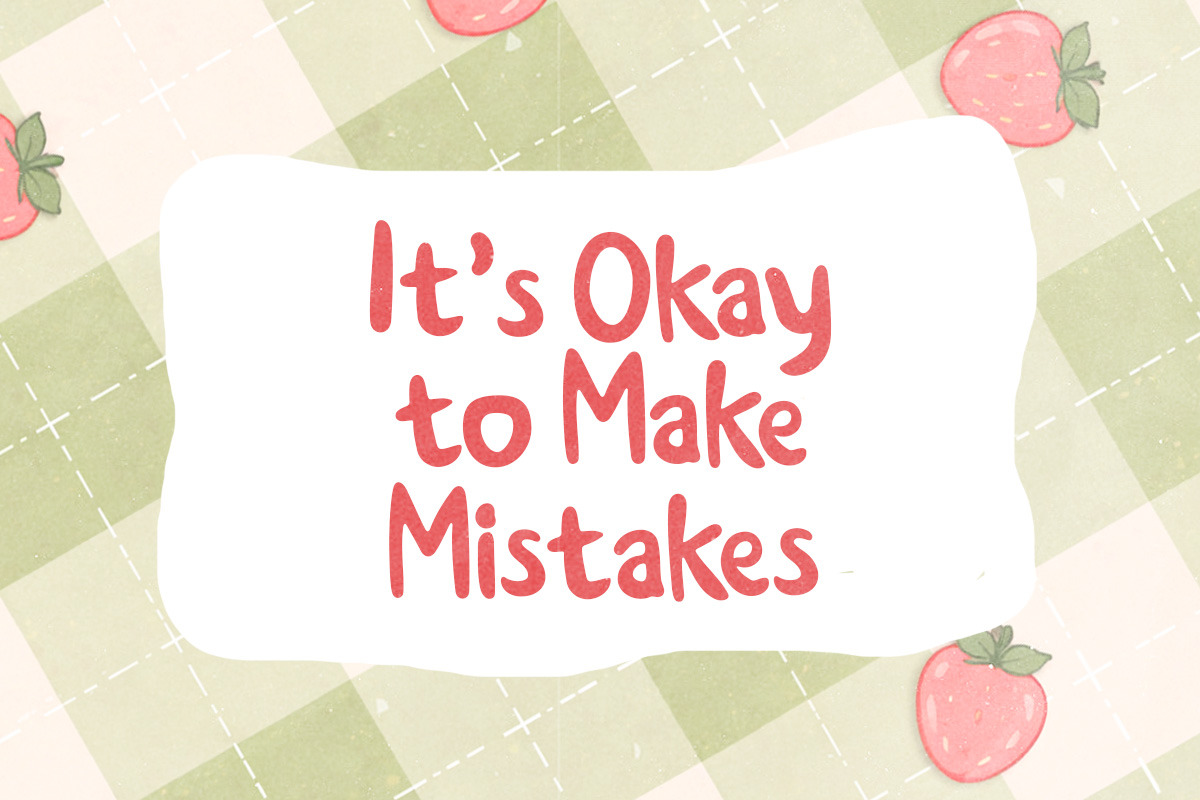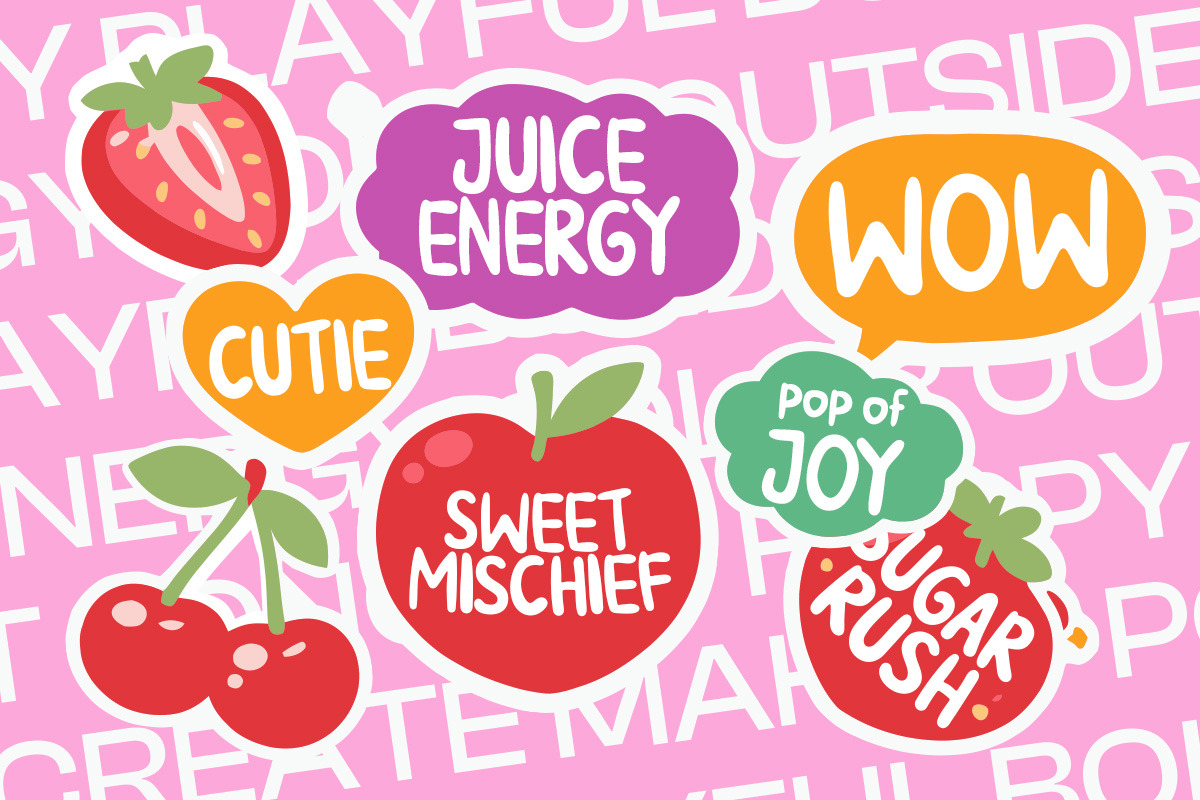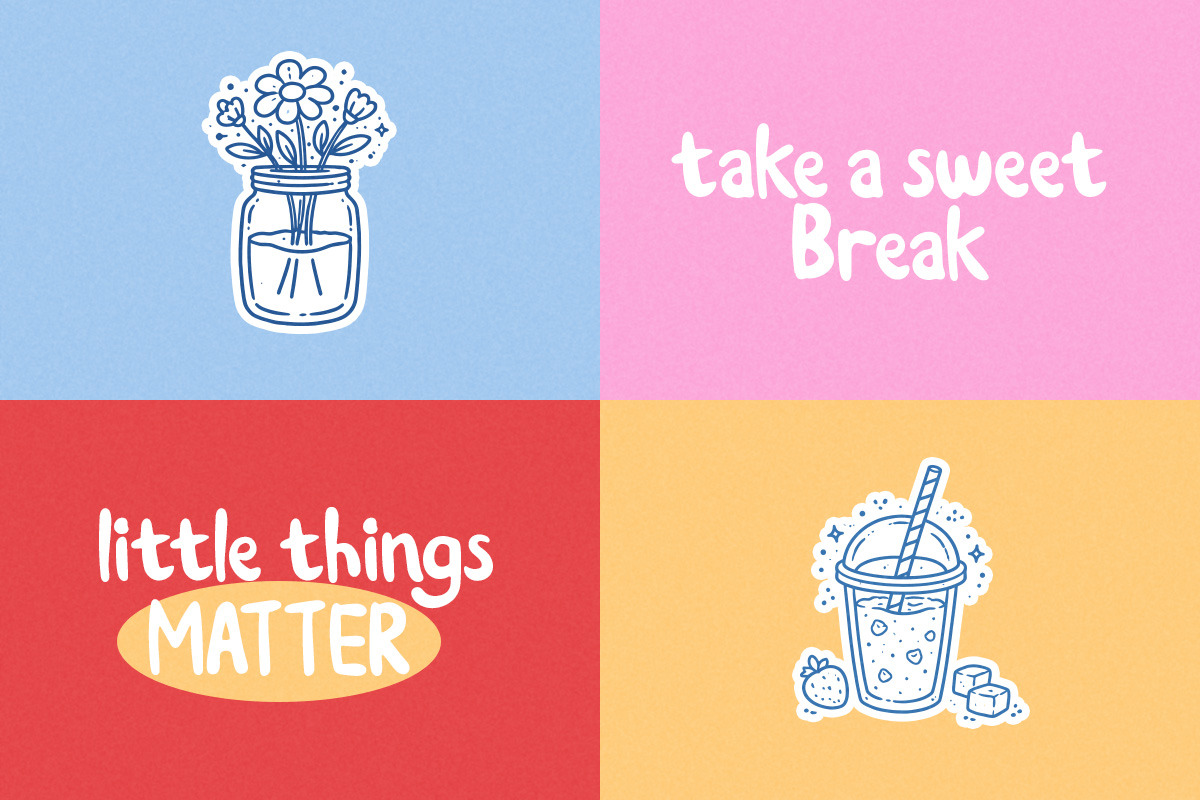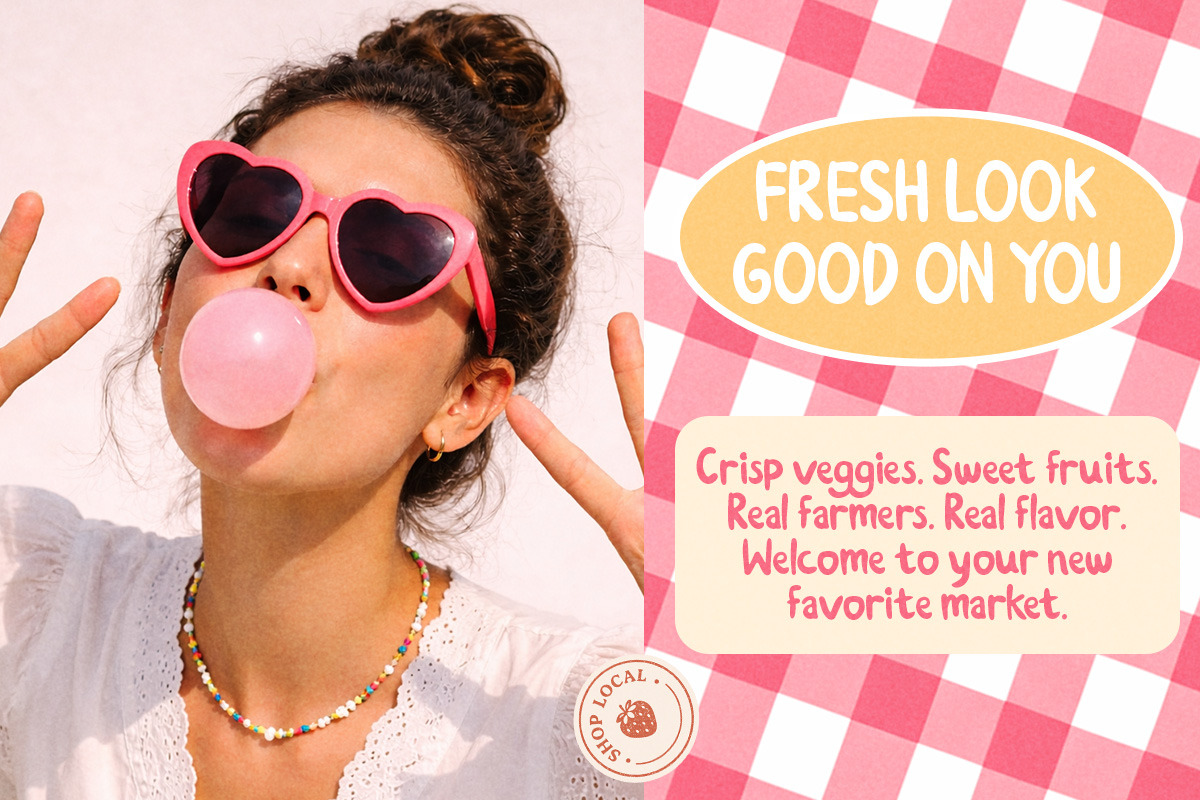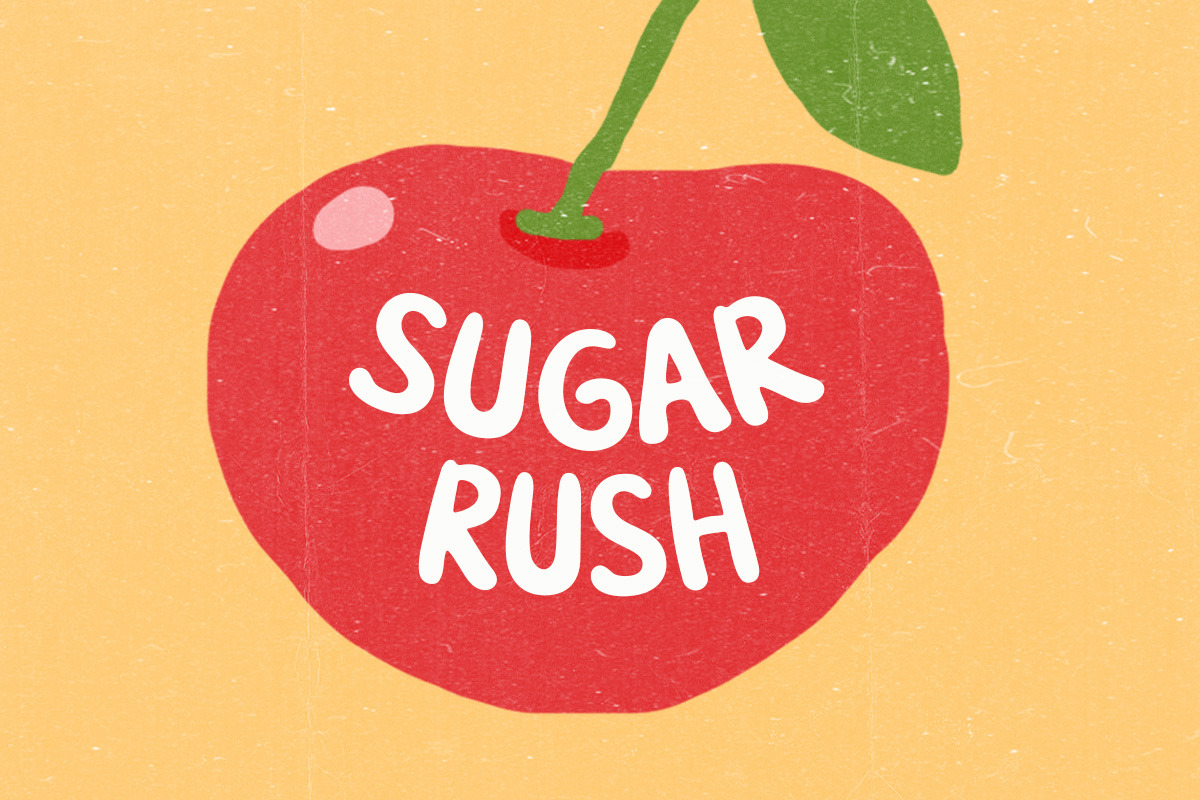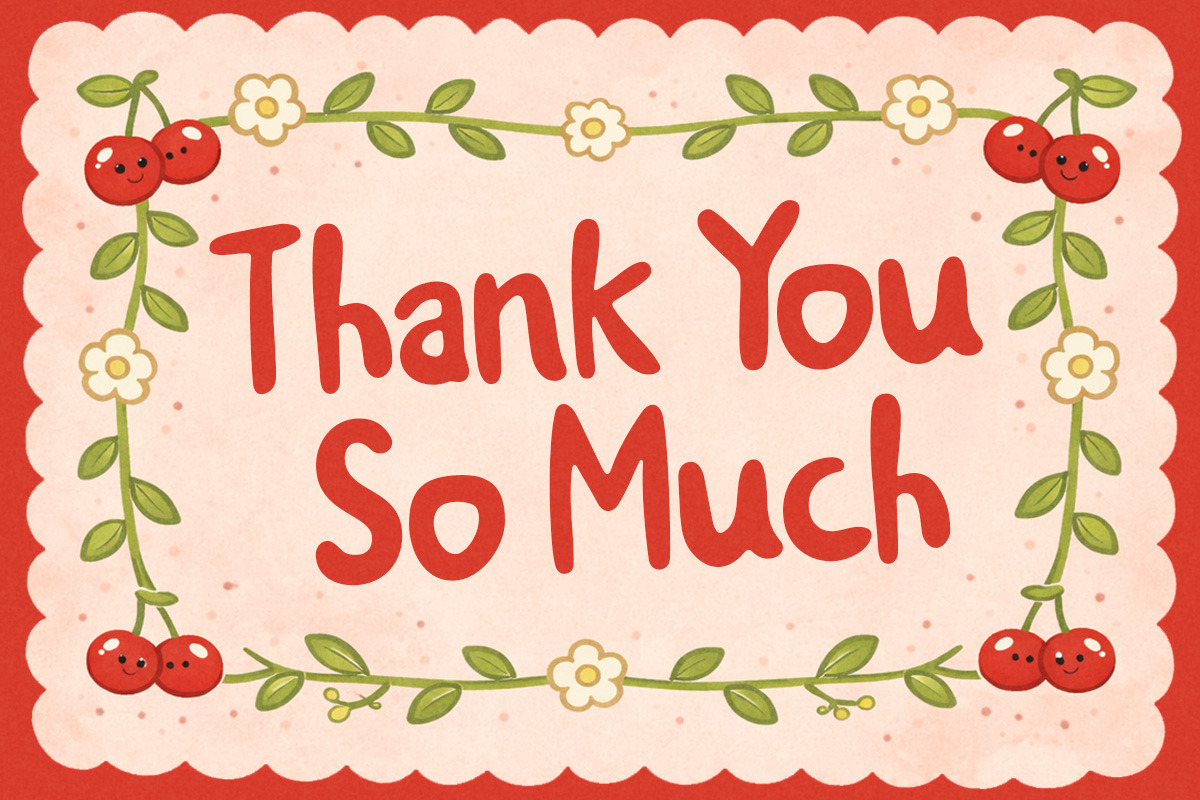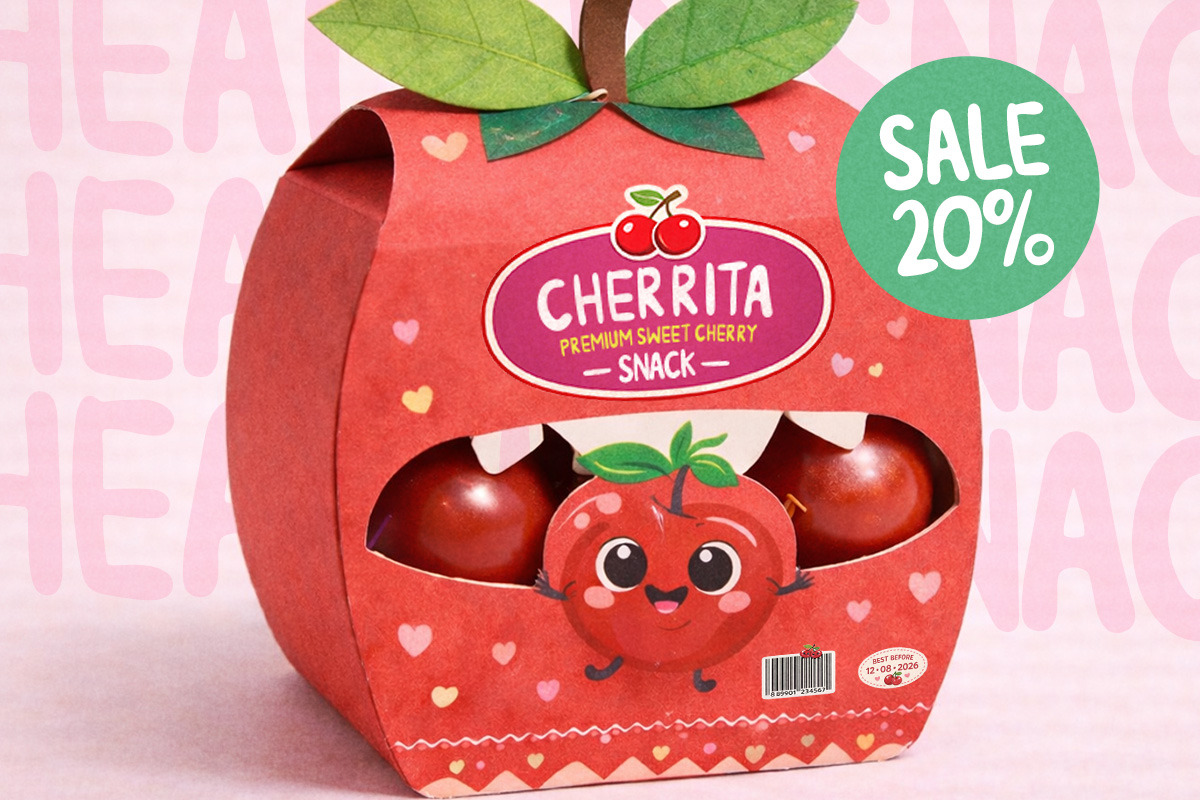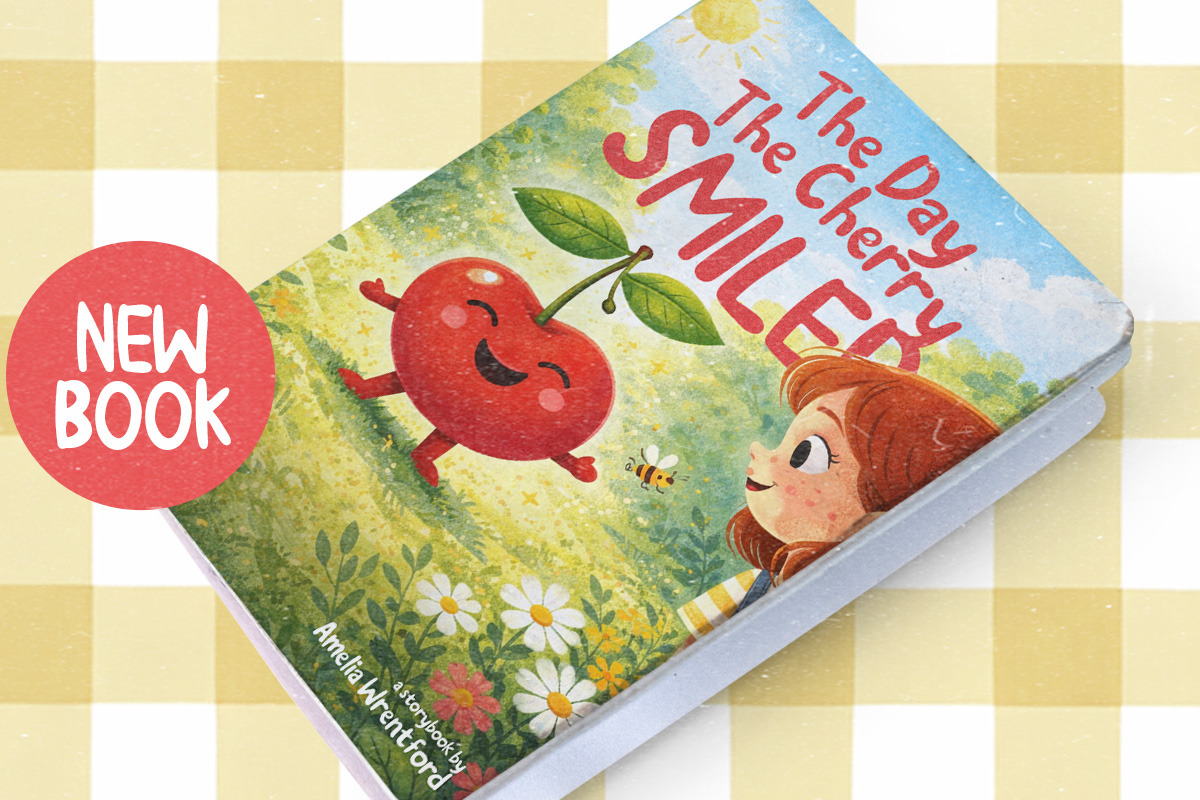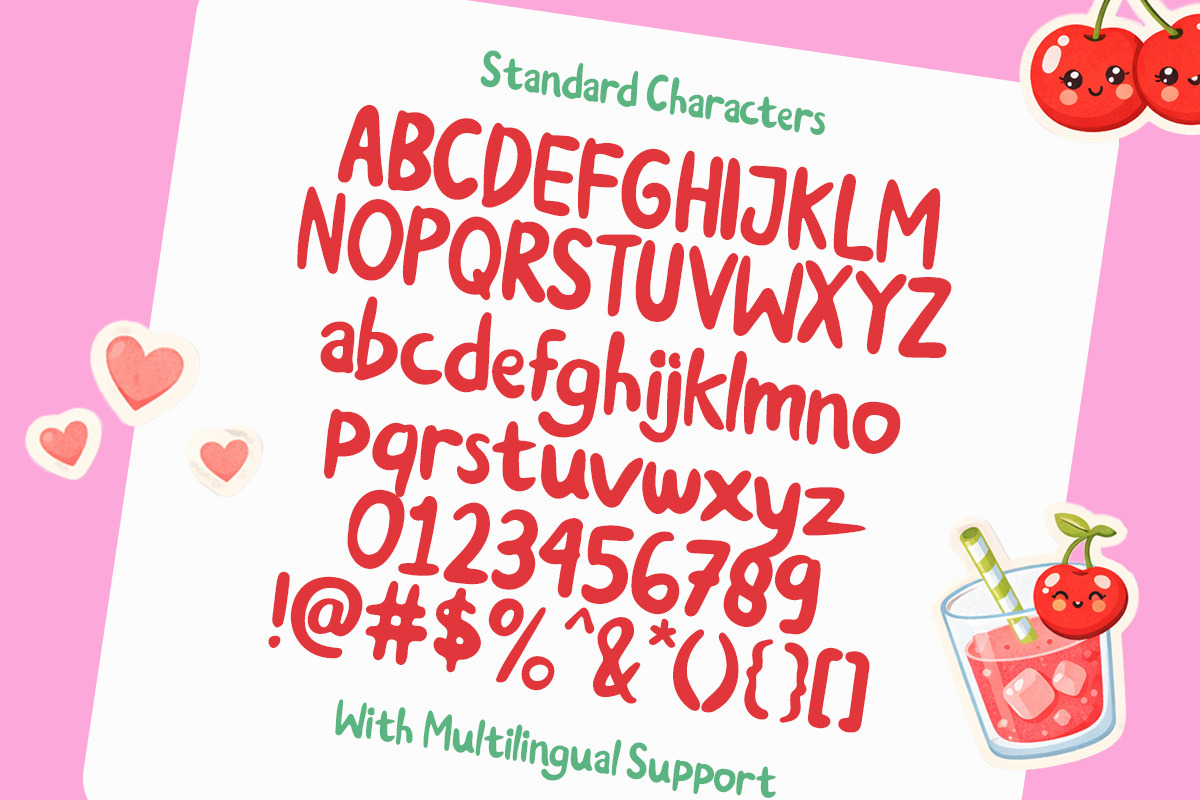
Cherry Rush Cute Handwriting
Cherry Rush is pure squishy sweetness in letter form. The rounded strokes feel soft like mochi, and every curve has that happy, bouncy energy that makes words look extra adorable. It’s bold but never loud, playful without trying too hard — just cute, comfy, and full of charm. Perfect for sticker sheets, pastel packaging, kids party invites, journaling covers, sweet shop branding, and colorful designs that want to feel bubbly, lovable, and totally huggable. Features :